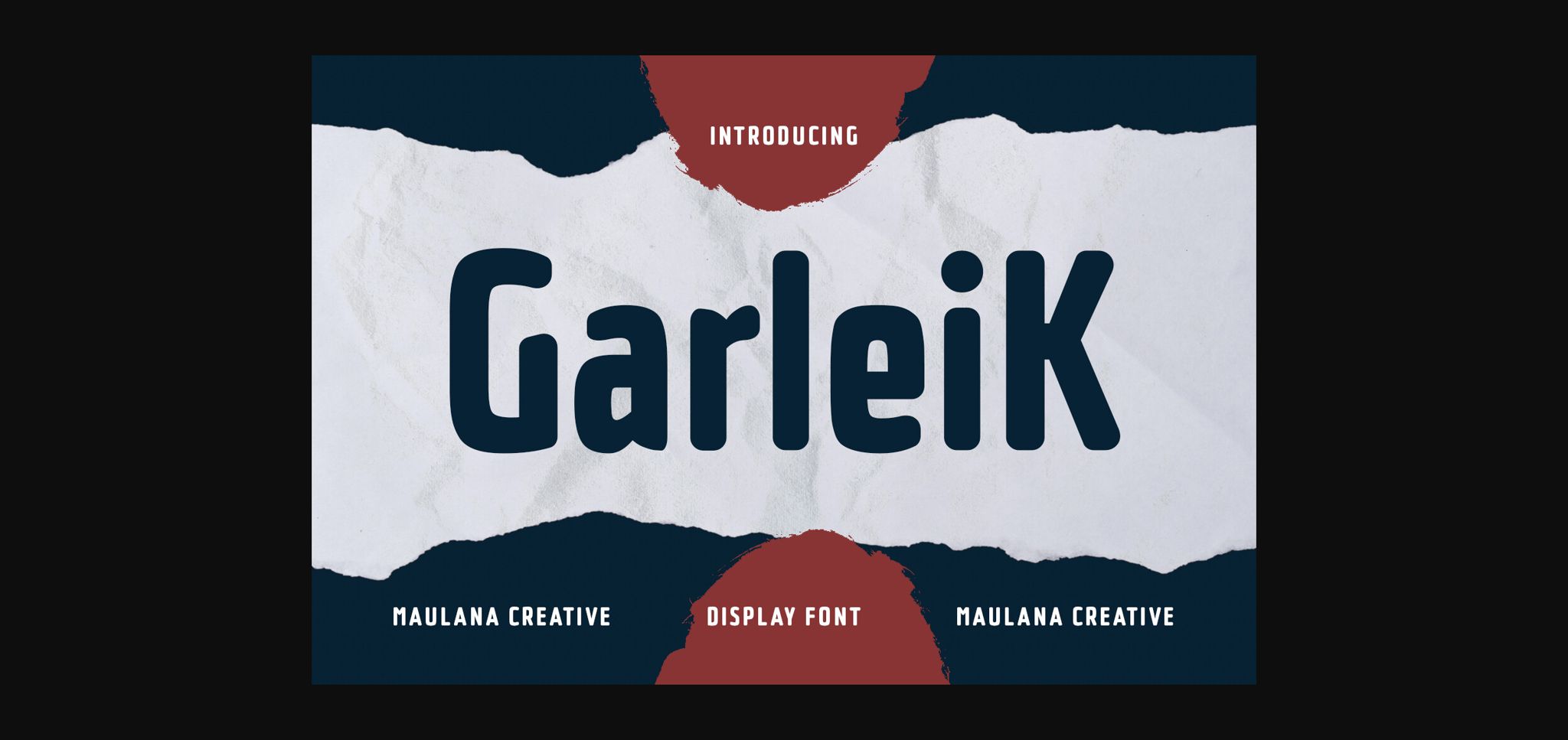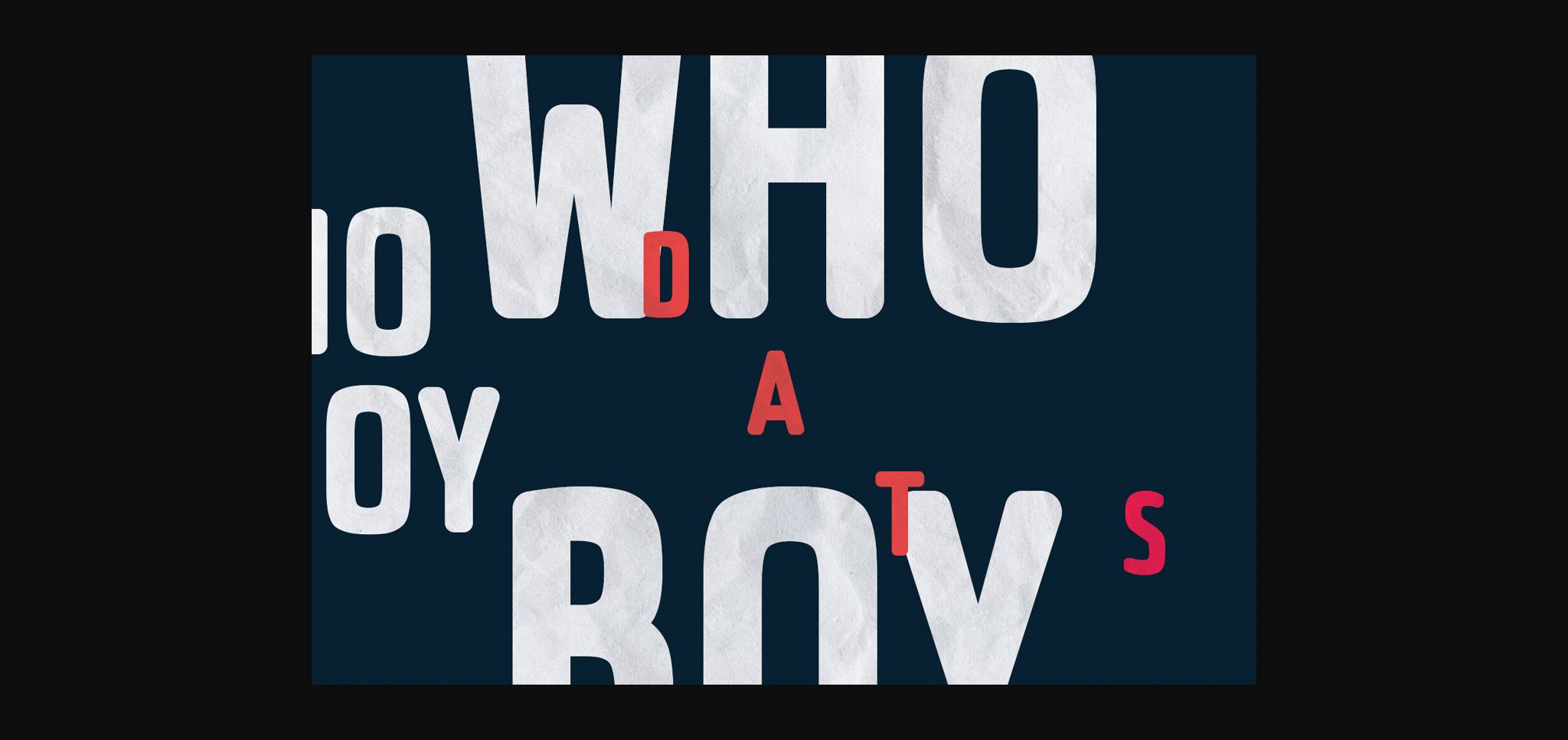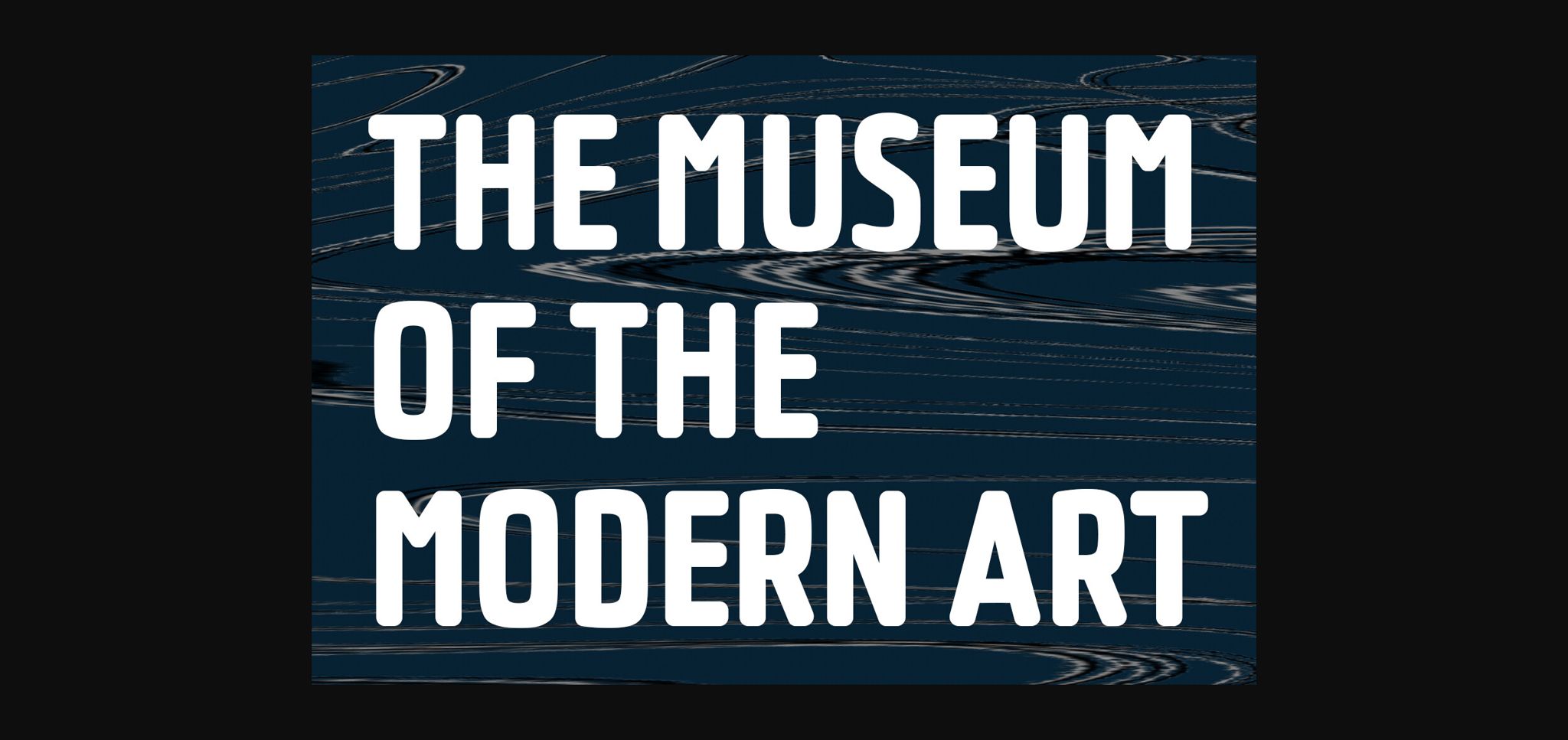
About Garleik Font
Garleik is a soft sans display font. Medium stroke, fun character with a bit of ligatures and stylistic. To give you an extra creative work. Garleik font support multilingual more than 100+ language. This font is good for logo design, Social media, Movie Titles, Books Titles, a short text even a long text letter and good for your secondary text font with script or serif. Make a stunning work with Garleik font.